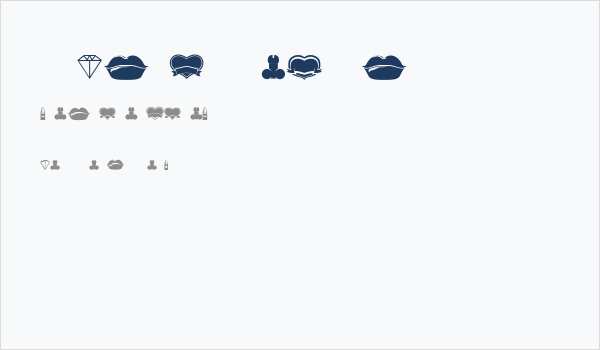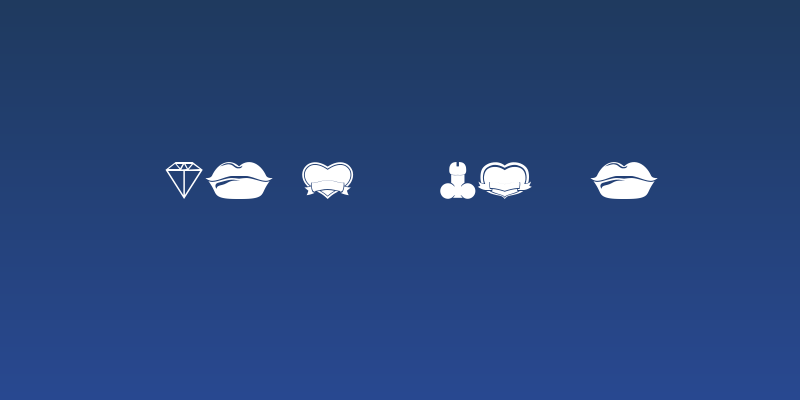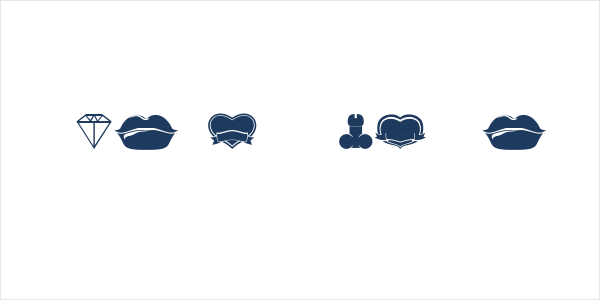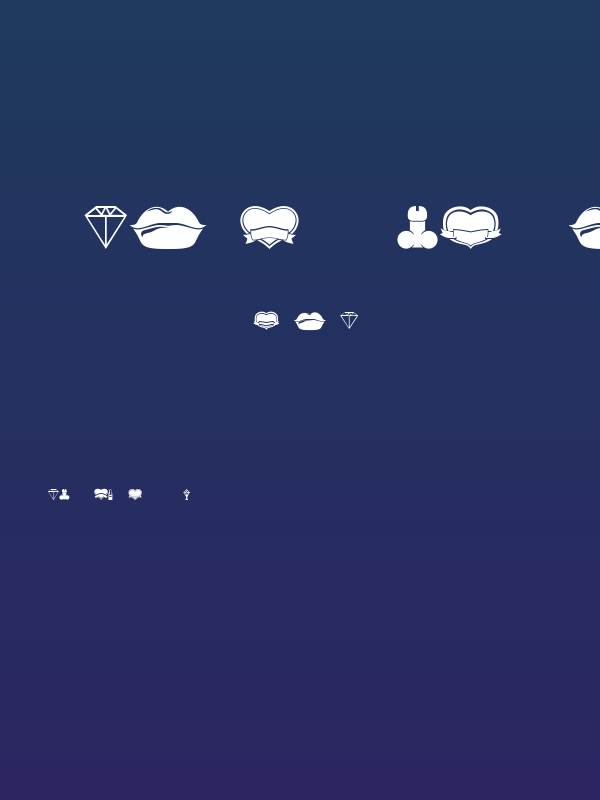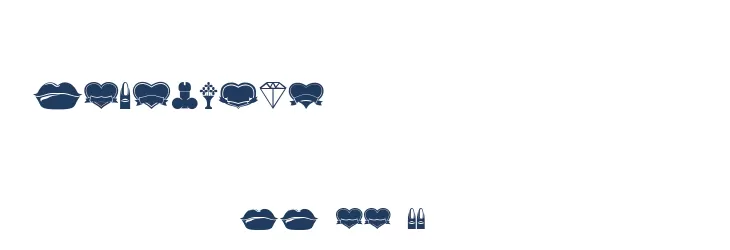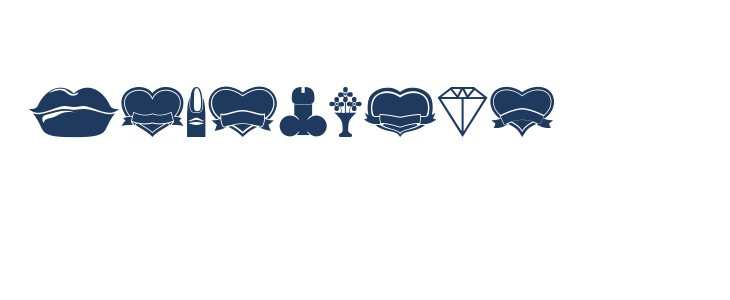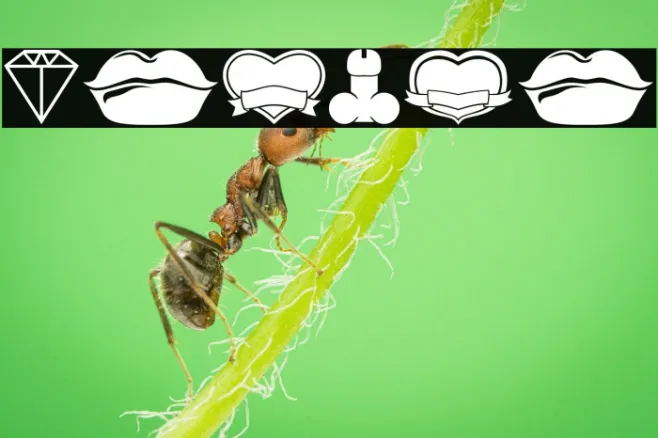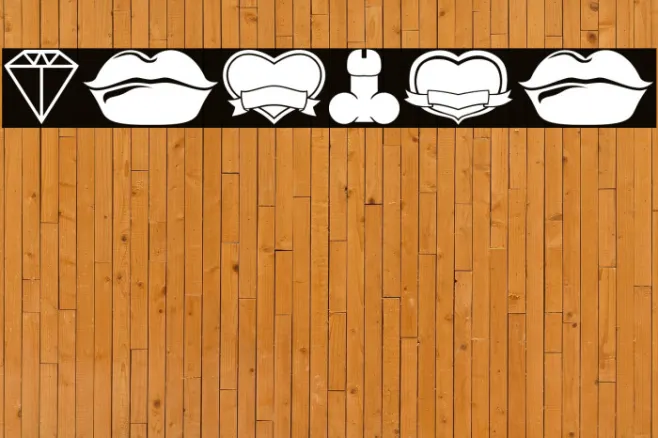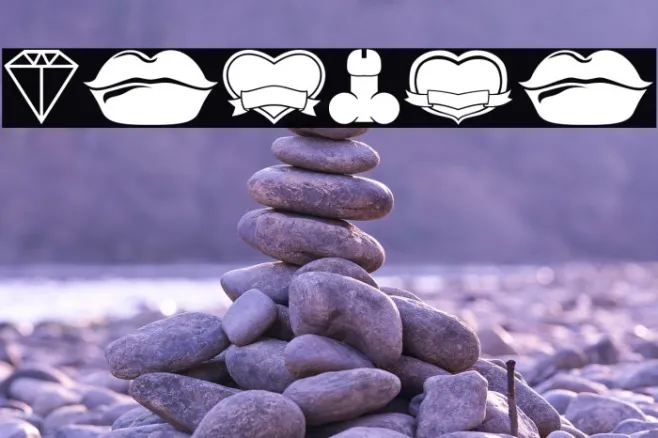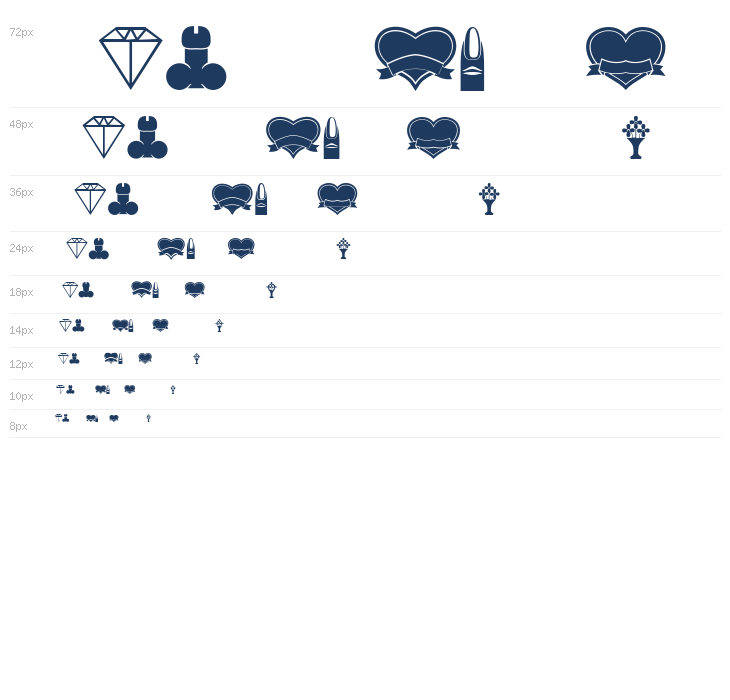
Uthando Regular Font
Uthando Regular Description
A decorative, playful font featuring icons of lips, hearts, lipstick, a bottle, flowers, a diamond, and a heart-shaped gem, all in a bold, outlined style.
| Overall Style | Playful, Elegant, Decorative |
| Use Case | Logos, Invitations, Branding, Decorative headings |